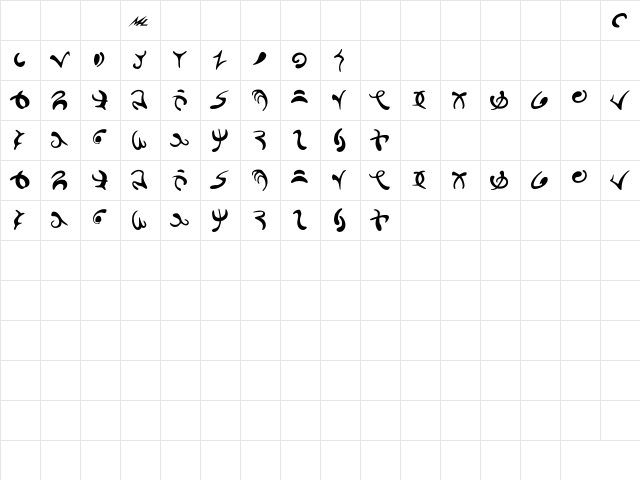
Seltorian Bold
Design Context for Seltorian Typeface
Seltorian is a composed and adaptable typeface that performs quietly and consistently across a wide range of design contexts. The heavy weight commands attention and anchors typographic hierarchies.
Pro Tip: Use Seltorian in both headline and body roles to test its range before committing to a single application.